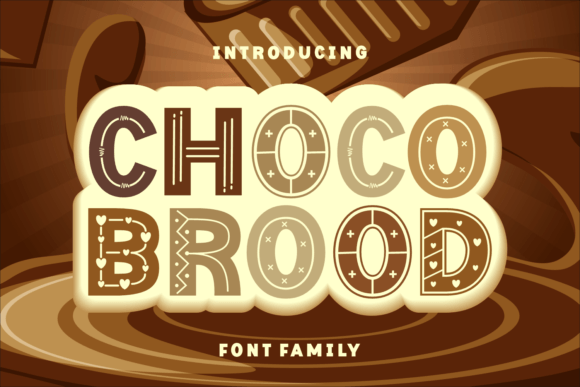
Introducing Choco Brood Font: The Fun and Friendly Decorative Font for Your Creative Projects
Are you looking for a font that can add a touch of fun and friendliness to your creative projects? Look no further than Choco Brood Font! This decorative font is designed to bring a smile to your face and make your designs stand out from the crowd. In this article, we’ll take a closer look at Choco Brood Font, its features, and how you can use it to take your creative ideas to the next level.
What is Choco Brood Font?
Choco Brood Font is a fun and friendly decorative font that is perfect for a wide range of creative projects. Whether you’re designing a logo, creating a social media graphic, or working on a branding project, this font is sure to make a statement. Its unique and playful design makes it a great choice for anyone looking to add a touch of whimsy to their designs.
Key Features of Choco Brood Font
So, what makes Choco Brood Font so special? Here are just a few of its key features:
- Fun and Friendly Design: Choco Brood Font has a playful and whimsical design that is sure to bring a smile to your face.
- High-Quality Vector Graphics: This font is built using high-quality vector graphics, making it perfect for use in a wide range of projects, from logos and branding to social media graphics and more.
- Easy to Read: Despite its playful design, Choco Brood Font is easy to read, making it perfect for use in body text and other applications where readability is key.
- Multilingual Support: This font supports multiple languages, making it a great choice for designers and businesses working on international projects.
How to Use Choco Brood Font in Your Creative Projects
So, how can you use Choco Brood Font in your creative projects? Here are just a few ideas to get you started:
- Logo Design: Choco Brood Font is perfect for use in logo design, thanks to its unique and memorable design.
- Social Media Graphics: Use this font to create eye-catching social media graphics that are sure to stand out from the crowd.
- Branding and Identity: Choco Brood Font can be used to create a cohesive brand identity that is fun, friendly, and approachable.
- Advertising and Marketing: This font is perfect for use in advertising and marketing materials, such as flyers, brochures, and more.
Tips and Tricks for Getting the Most Out of Choco Brood Font
Here are a few tips and tricks for getting the most out of Choco Brood Font:
- Experiment with Different Sizes and Colors: Don’t be afraid to experiment with different sizes and colors to find the perfect combination for your project.
- Pair it with Other Fonts: Choco Brood Font pairs well with a wide range of other fonts, so don’t be afraid to get creative and try out different combinations.
- Use it to Add Personality to Your Designs: This font is all about adding personality to your designs, so don’t be afraid to let your creativity shine!
In conclusion, Choco Brood Font is a fun and friendly decorative font that is perfect for a wide range of creative projects. Its unique and playful design makes it a great choice for anyone looking to add a touch of whimsy to their designs. With its versatility, high-quality vector graphics, and ease of use, this font is sure to become a true favorite in your design toolkit.